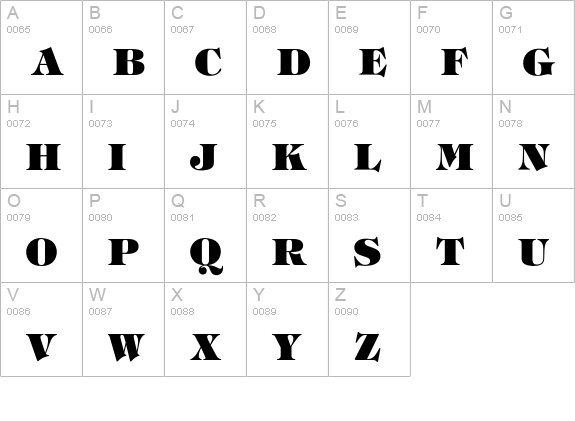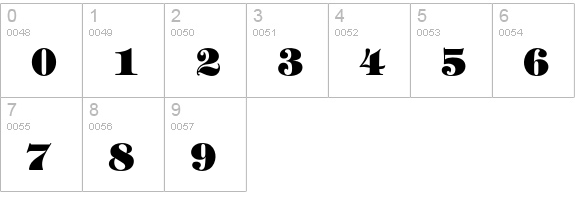
Strawberry Font Details
Strawberry font is a delightful and playful typeface that brings a whimsical touch to any design project. With its charming curves and sweet appeal, this font is perfect for adding a touch of fun and personality to your creations. Whether you're working on a children's book, party invitation, or branding materials for a cute and colorful brand, Strawberry font is sure to make your text stand out. Best of all, Strawberry font is completely free to download at FontsMarket.com. You can easily access this charming typeface and enhance your designs without any cost. Get your hands on Strawberry font today and let your creativity blossom with its playful and inviting style.